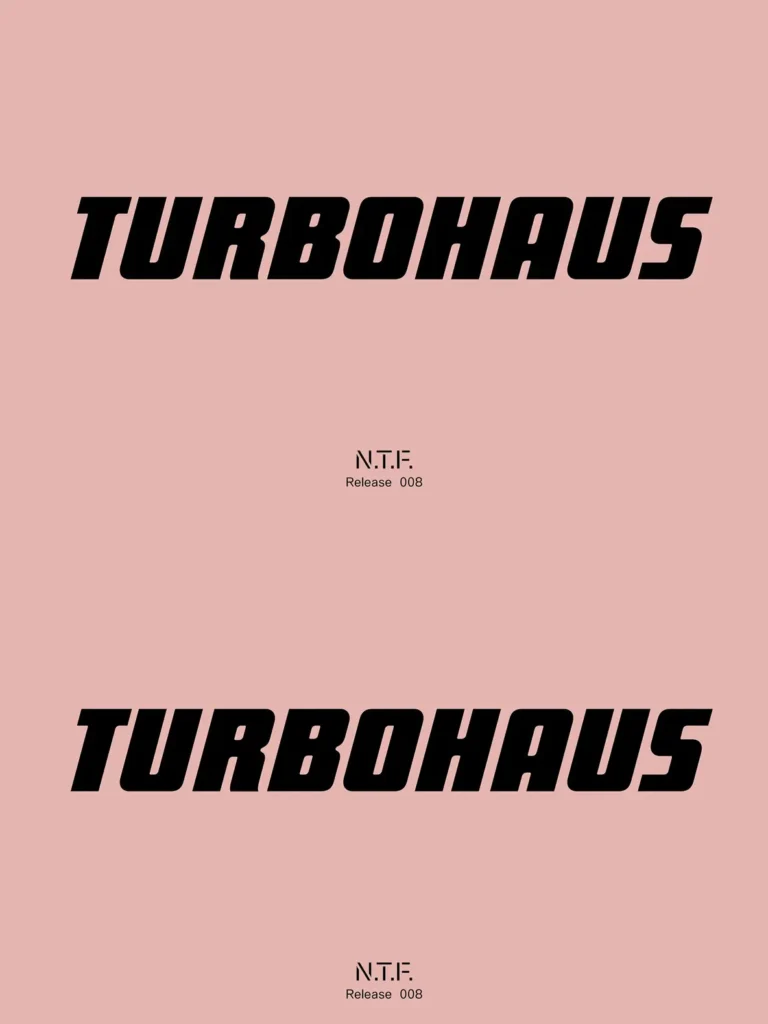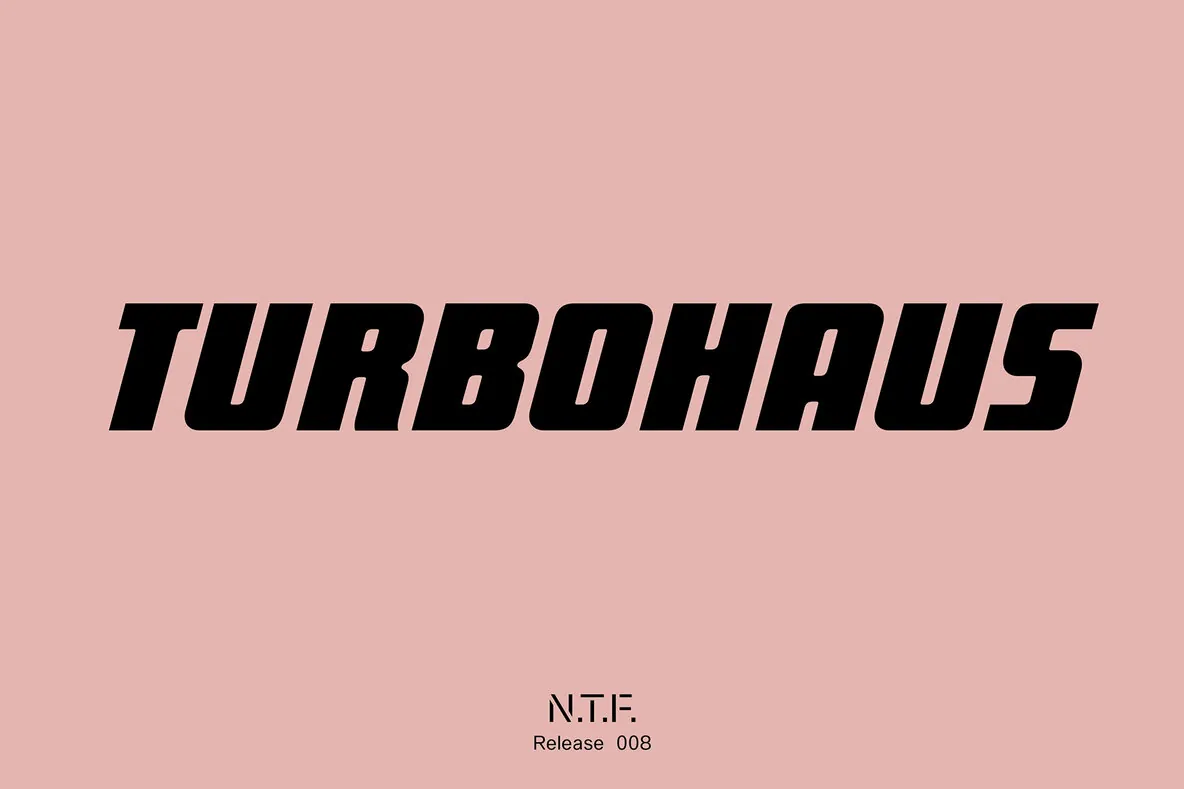
Turbohaus: Industrial Display Typeface With Racing Heritage
Turbohaus draws from the engineering legacy of racecar lettering, offering an all-caps display typeface informed by visible markings and rounded numerals. Its design references the environments of prototypes and track equipment, shaping each letter for legibility amid speed, glare, and movement. This emphasis on clarity results in a visual language where form is a tool, hardened by necessity and refined by tradition.
The typeface distills these influences into bold strokes, softened corners, and tight geometry. The analog appeal of hand-painted bodywork is captured through uniform mass and minimal variation, reinforcing recognition and rhythm. Curves are defined by mechanical precision rather than flourish, imparting a sense of reliability and aerodynamics that speaks to functional design.
All-caps display design with upright and italic styles
Single bold weight
238 glyphs with support for over 90 languages
Forms inspired by signage, wayfinding, and industrial identity
Engineered for clarity and distinction at various sizes